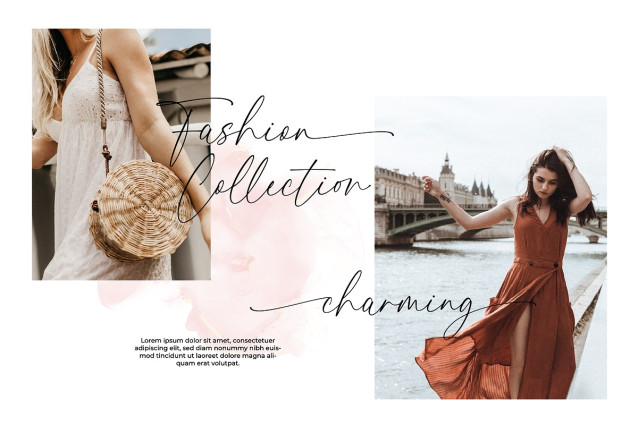
Melenias Brush Font
Melenias is a flowing handwritten font, described by an elegant touch, perfect for your favorite projects. Fall in love with its incredibly distinct and timeless style and use it to create spectacular designs!
Classification: | Brush Fonts, Script Fonts |